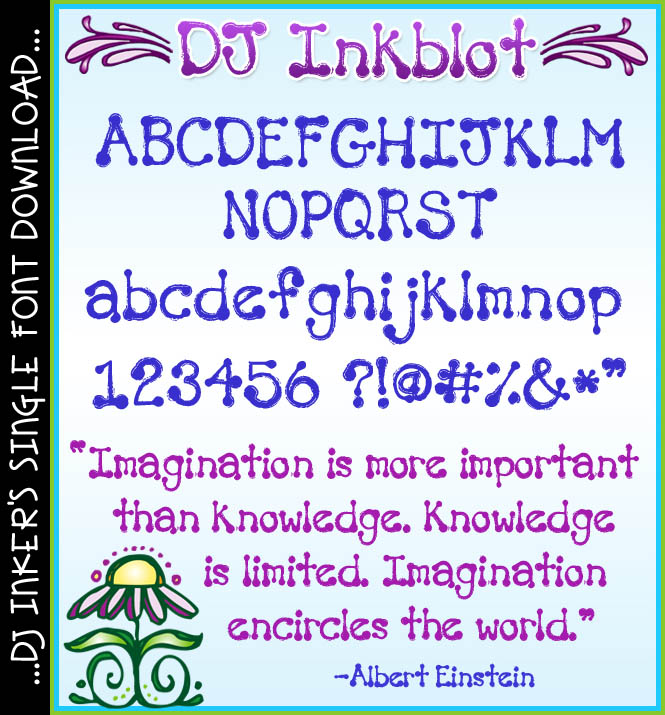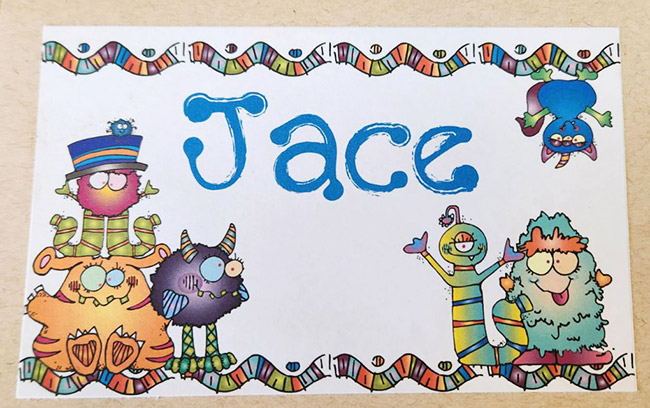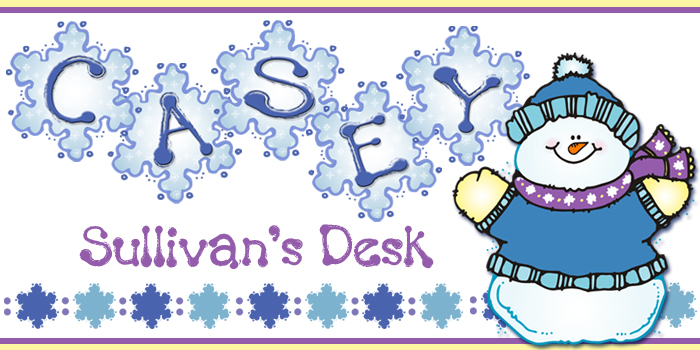
Your projects will pop with personality when you use our DJ Inkblot font! This spunky little font download adds a lot of texture and style. Great for art rooms, chalk art, parties, headlines or anything that needs a little edge and a smile. Plus, it works well in nearly any size and color.